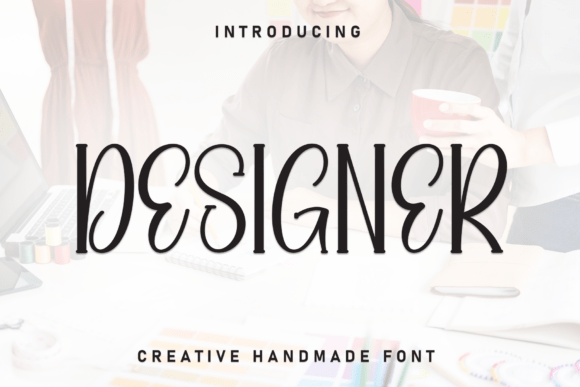
Introducing Designer Font: Elevate Your Creativity with a Handmade Display Font
In the world of typography, a well-crafted font can make all the difference in elevating your design to the next level. For designers and crafters looking to add a touch of personality and originality to their projects, the Designer Font is an exceptional choice. This creative handmade display font boasts tall, stylish letters and artistic flair, perfect for making a statement in branding, fashion projects, posters, and editorial design.
The Unique Charm of Designer Font
Designer Font stands out with its unique letterforms that seamlessly blend a modern look with a handcrafted touch. Each letter is carefully crafted to exude a sense of sophistication and elegance, while maintaining a distinctive artistic flair. This font is not just a collection of letters; it’s a tool for designers to infuse their work with personality and style. Whether you’re working on a fashion brand, a movie poster, or an editorial piece, Designer Font offers the versatility to make your project shine.
One of the key advantages of Designer Font is its versatility. Its tall, stylish letters are not only visually striking but also highly adaptable. Here are a few ways you can use Designer Font to elevate your projects:
- Branding: Create a memorable brand identity with a font that stands out. Designer Font’s unique style can help your brand leave a lasting impression on your audience.
- Fashion Projects: Whether you’re designing a lookbook, a fashion magazine, or an advertisement, Designer Font adds a touch of elegance and sophistication that resonates with fashion enthusiasts.
- Posters: Make your posters pop with a font that’s as artistic as it is readable. Designer Font’s tall letters are perfect for headlines and titles that need to capture attention.
- Editorial Design: Add a creative twist to your editorial designs, such as magazines, newspapers, and blogs. Designer Font brings a level of craftsmanship that can elevate the overall look and feel of your publication.
Why Choose Designer Font?
In a sea of digital fonts, Designer Font offers something special—a blend of modern aesthetics with a handmade feel. Here are a few reasons why designers and crafters are gravitating towards this font:
- Originality: In a world where generic fonts are common, Designer Font offers a breath of fresh air with its unique and artistic letterforms.
- Personality: This font is full of character, allowing designers to imbue their projects with a personality that resonates with their audience.
- Versatility: Whether you’re working on a digital project or a print design, Designer Font adapts beautifully, ensuring your work looks great across different mediums.
Tips for Using Designer Font Effectively
To make the most out of Designer Font, consider the following tips:
- Mix and Match: Don’t be afraid to experiment with different sizes, weights, and colors of Designer Font to create visual hierarchy and interest.
- Pair with Simplicity: While Designer Font is artistic and bold, pairing it with a simpler font can create a balanced and harmonious design.
- Play with Spacing: The tall letters of Designer Font offer a lot of visual space. Play with letter spacing and line height to find the perfect balance for your design.
Designer Font is more than just a font; it’s a design statement. With its handmade display, stylish letters, and artistic flair, it offers designers and crafters a tool to create original and captivating designs. Whether you’re working on branding, fashion projects, posters, or editorial design, Designer Font provides the personality and versatility you need to stand out. Embrace the unique charm of Designer Font and elevate your creativity to new heights.